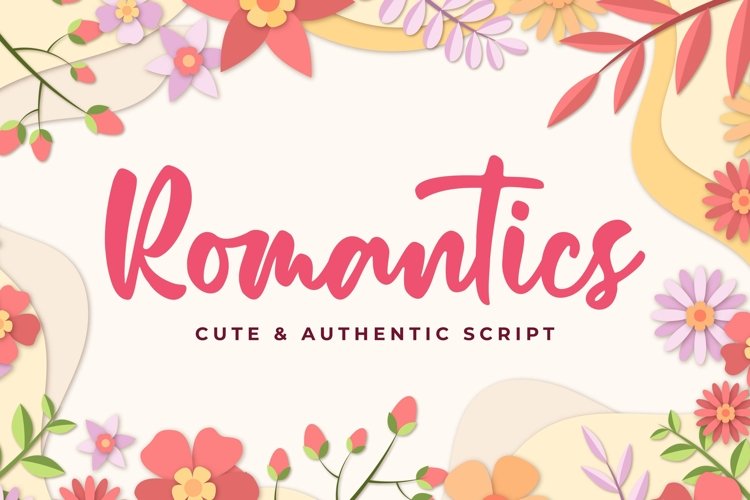
Romantics
Romantics â€“ is a Cute & Authentic Script font with a natural handwritten feel. It has sweety swash that are perfect for any creative design. This handmade font will make your design has a beautiful natural touch for each details. It is perfect for any design project as Invitation,logo, book cover, craft or any design purposes.
This font is PUA encoded which means you can access all of the magical glyphs and swashes with ease! It also features a wealth of special features including alternate glyphs and ligatures.